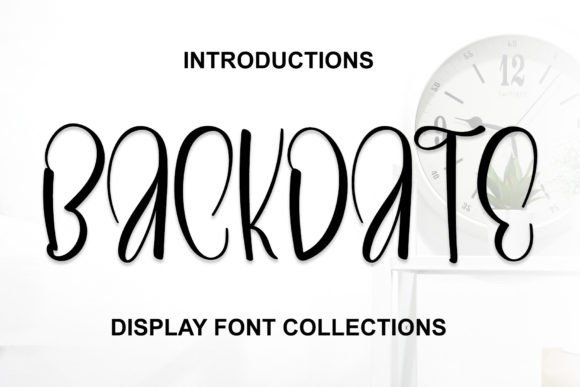
Introducing Backdate Font: Elevate Your Designs with Elegance
Are you on the hunt for a font that adds a touch of luxury and sophistication to your design projects? Look no further than Backdate Font, a stunning handwritten font that is sure to captivate your audience. With its unique charm and beautiful character set, Backdate is the perfect addition to any designer’s toolkit.
The Beauty of Backdate Font
Backdate Font is a sweet and beautiful handwritten font that boasts characters that dance along the baseline, creating a sense of movement and fluidity. This distinctive feature sets it apart from other fonts and makes it a standout choice for designers looking to add a touch of elegance to their work. Whether you’re creating a logo, branding materials, or digital content, Backdate Font is sure to make your designs shine.
Key Features of Backdate Font
• Handwritten charm: Backdate Font features a beautiful, handwritten aesthetic that adds a personal touch to any design project.
• Luxury feel: With its elegant character set and flowing baseline, Backdate Font exudes luxury and sophistication.
• Versatile: This font is perfect for a wide range of design projects, from logos and branding materials to digital content and more.
• Easy to read: Despite its ornate appearance, Backdate Font is surprisingly easy to read, making it a great choice for body text and headlines.
Uses for Backdate Font
Backdate Font is a versatile font that can be used in a variety of design projects, including:
• Logo design: Create a stunning logo that showcases your brand’s personality and style with Backdate Font.
• Branding materials: Use Backdate Font to create cohesive branding materials, such as business cards, brochures, and letterheads.
• Digital content: Add a touch of elegance to your digital content, including social media graphics, blog posts, and email newsletters.
• Stationery: Create beautiful stationery, including wedding invitations, greeting cards, and more.
Tips for Using Backdate Font
To get the most out of Backdate Font, here are a few tips to keep in mind:
• Use it sparingly: While Backdate Font is beautiful, it can be overwhelming if used excessively. Use it sparingly to create a sense of hierarchy and emphasis.
• Pair it with a sans-serif font: Pair Backdate Font with a clean, sans-serif font to create a striking contrast and add visual interest.
• Experiment with colors: Backdate Font looks stunning in a variety of colors, so don’t be afraid to experiment and find the perfect hue for your design.
In conclusion, Backdate Font is a beautiful and elegant handwritten font that is sure to elevate your design projects. With its unique charm, luxury feel, and versatility, it’s the perfect addition to any designer’s toolkit. Whether you’re a seasoned designer or a crafty DIY enthusiast, Backdate Font is a must-have font that will help you create stunning designs that leave a lasting impression.